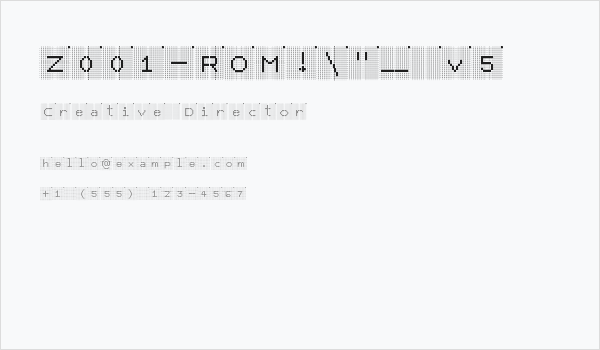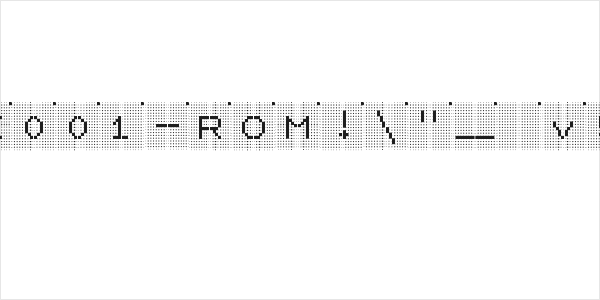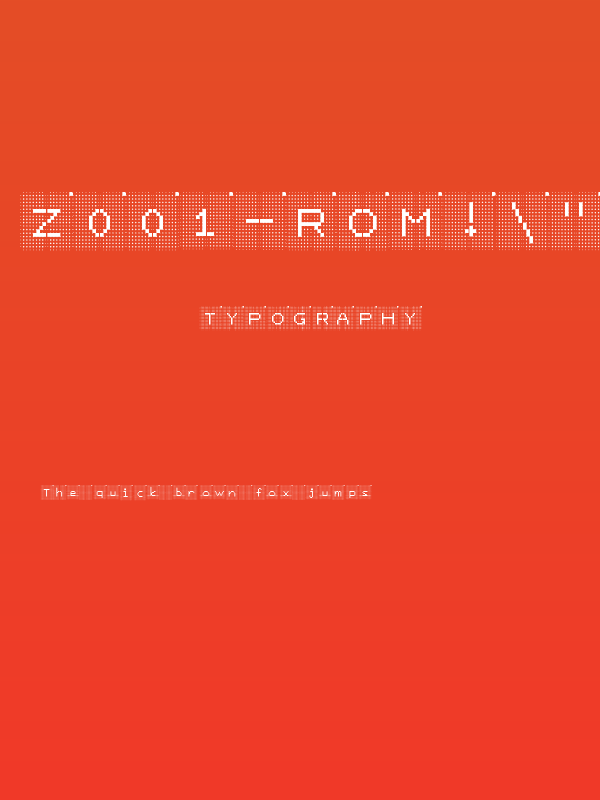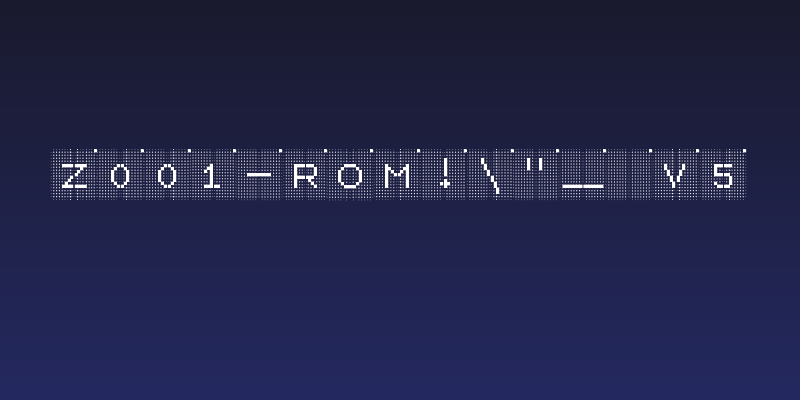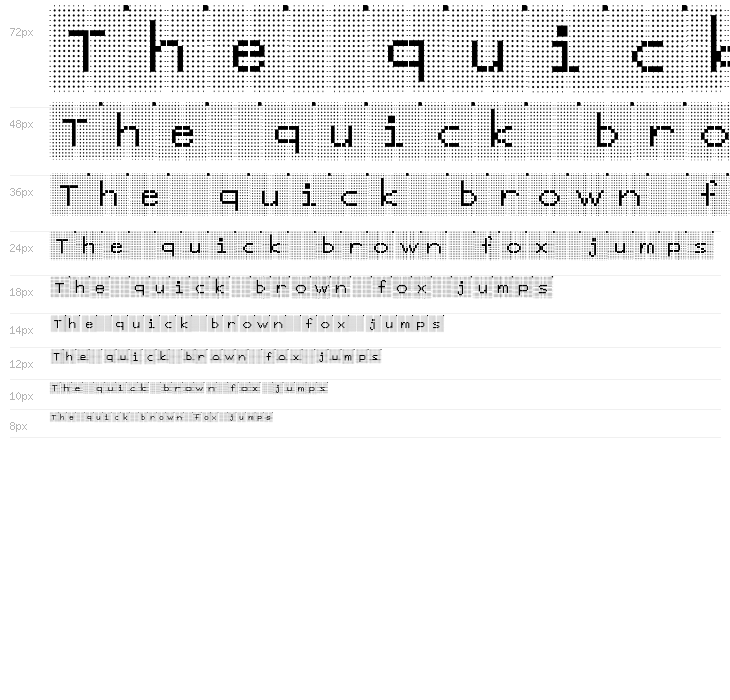
Z001-ROM!"_ v5 Font
| Stile generale | Retro |
| Caso d'uso | Coding, Digital displays, Retro designs |
| Progetti proposti | Ideal for retro-themed designs, coding environments, digital art projects, and any application requiring precise alignment. |